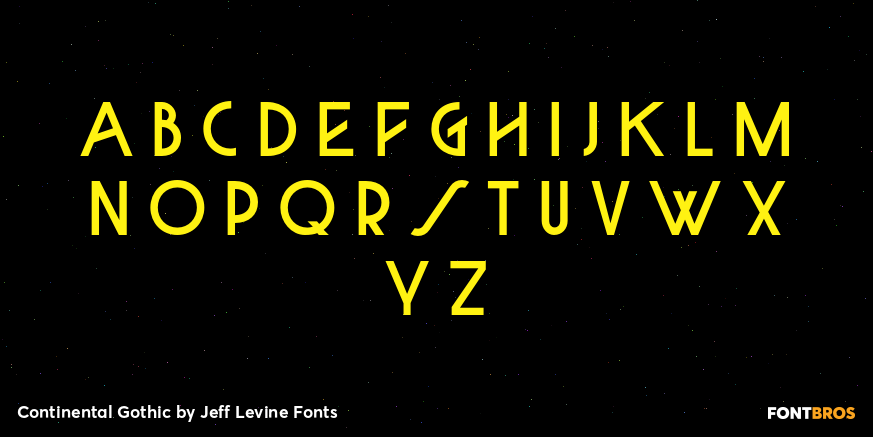
Continental Gothic
Continental Gothic JNL is elegant and sophisticated... perfect for an Art Deco project needing a font that is not too bold or overpowering.